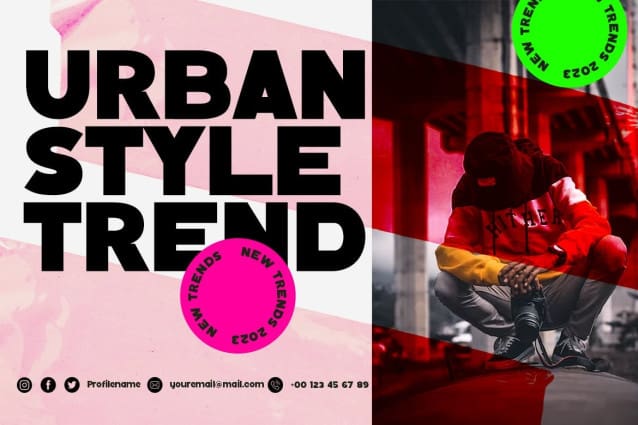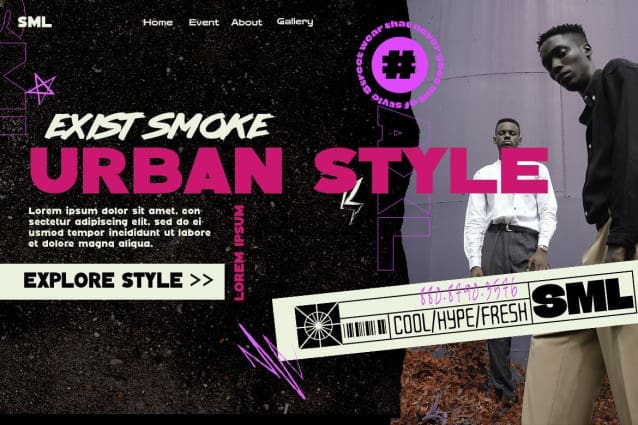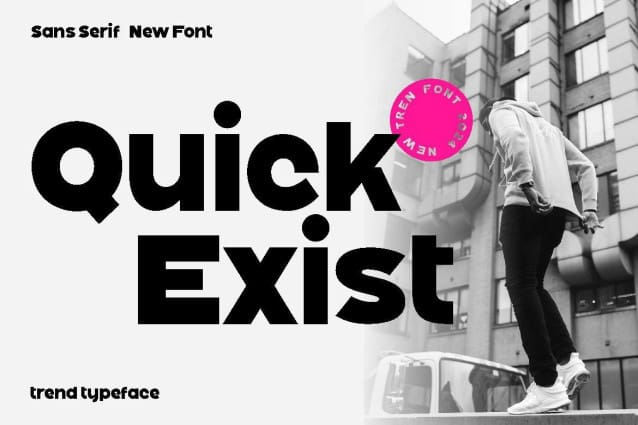
Quick Exist Font
Quick Exist Font, this collection of sSerif is perfect for personal branding. It was made with the intention to be used for your personal branding. But, this works well for many applications. Everything from personal branding, logos, name tag, handwritten quotes, product packaging, merchandise, social media & greeting cards. photography signature, advertising could benefit from this collection of these bold signature fonts.